MB&F Metropolis
This poster shows a metropolis shaped by MB&F. In this parallel world, Co-Creations, Horological and Legacy Machines have been transformed into buildings and spaceships all serving the citizens of MB&F’s M.A.D.Galaxy!
From Angelus to Zenith
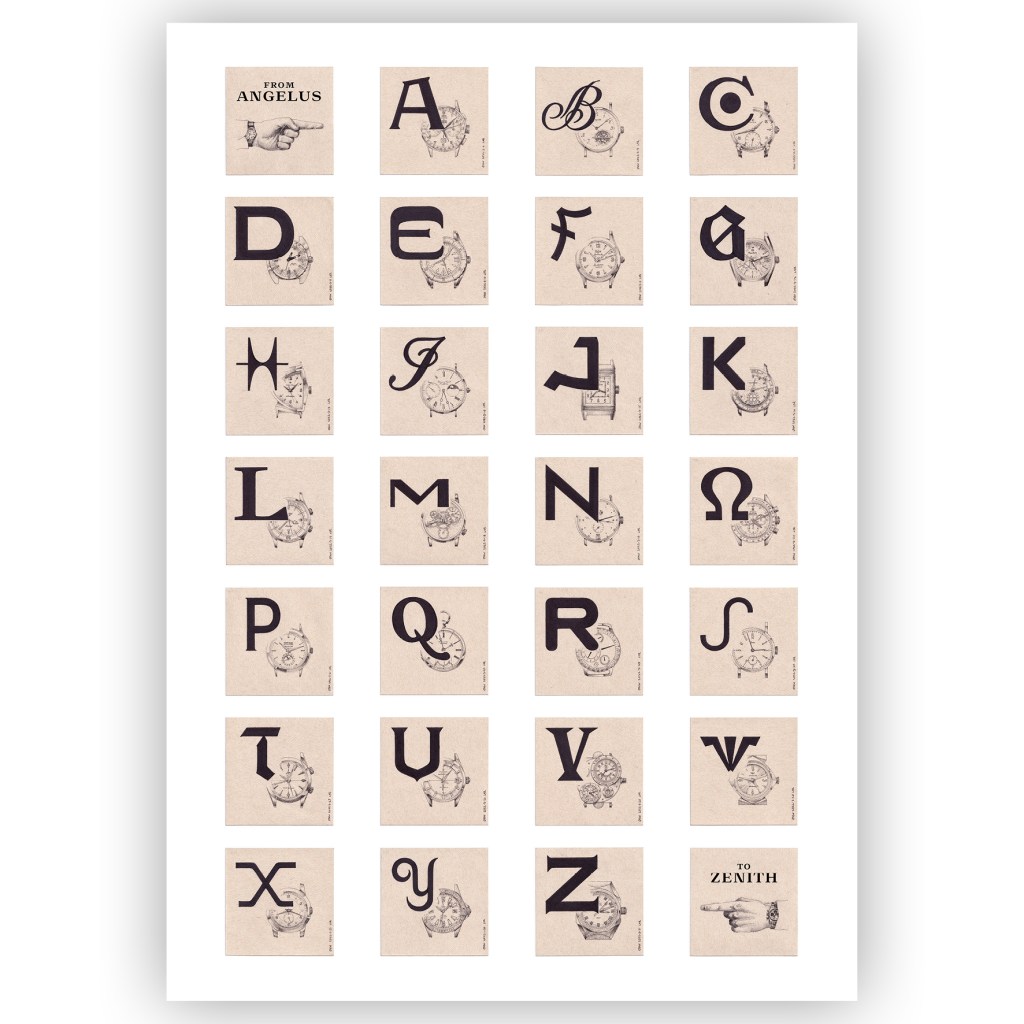
This poster is a collection of drawings tracing the alphabet through watch logo initials. The drawings were completely made by hand with a mixture of precision pens and alcohol-based markers. Print made on-demand, please get in touch on the About page.